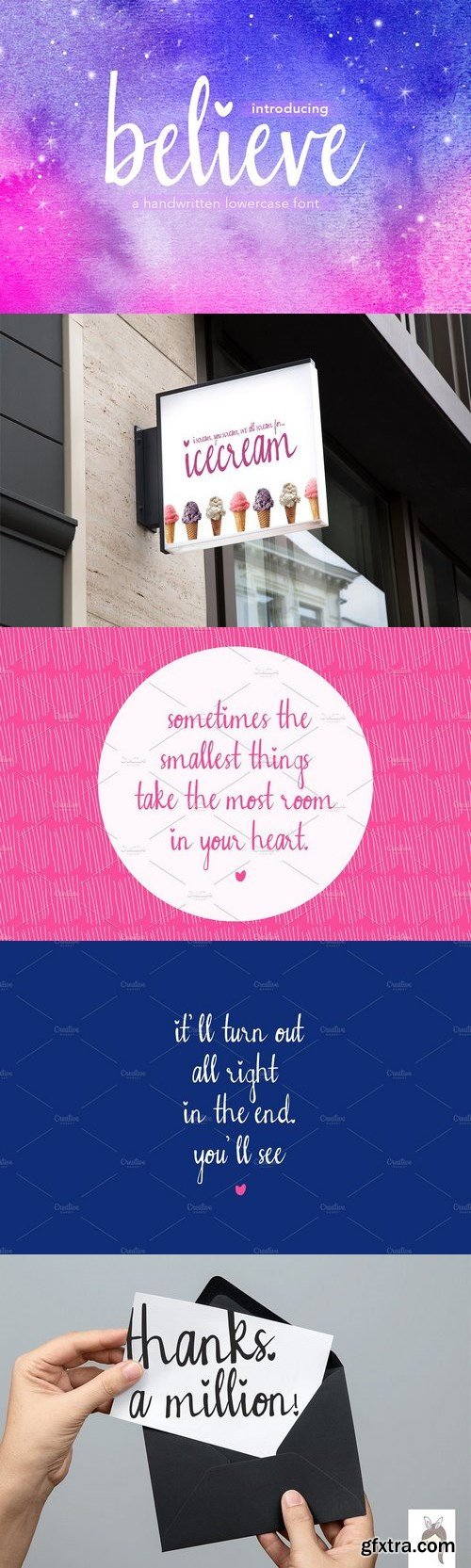
CM - Believe Font 1459882
Believe is a handwritten font, this font is cute and playful! Perfect for invitations, logos, branding, cards, scrapbooking, and more!